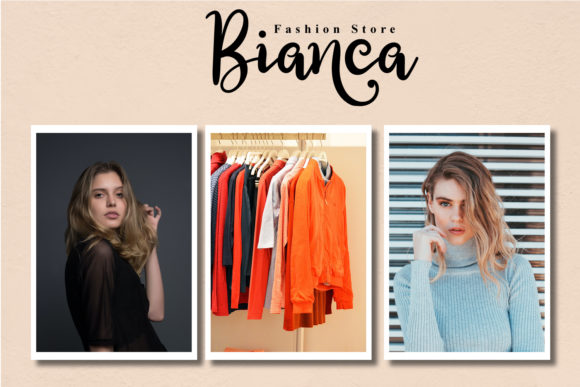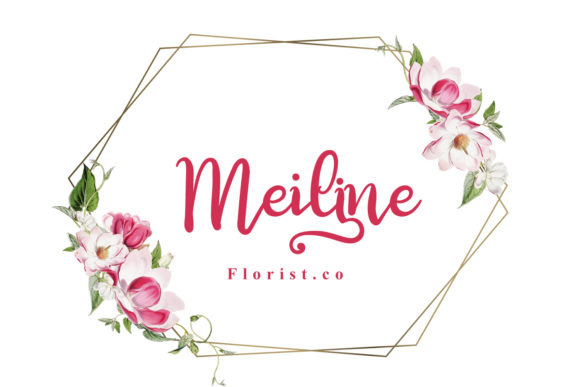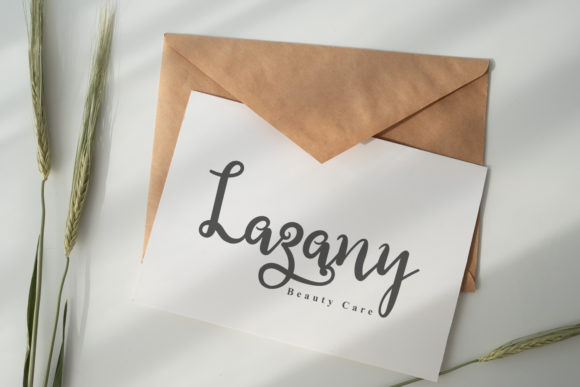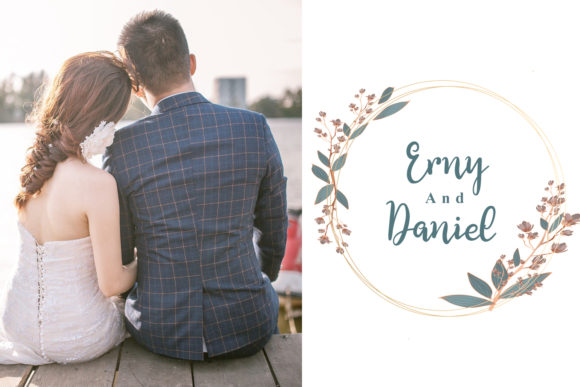
Introducing Chassandra Font: Elevate Your Designs with Elegance and Versatility
Are you on the hunt for a font that can add a touch of sophistication and elegance to your designs? Look no further than Chassandra Font, a lovely and flowing handwritten font that’s perfect for designers and crafters alike. With its PUA encoding, Chassandra offers unparalleled ease of use, allowing you to access a vast array of glyphs and swashes with just a few clicks.
The Beauty of Chassandra Font
Chassandra Font boasts a range of features that make it an ideal choice for any design project. Its varying baseline and smooth lines create a sense of fluidity and movement, adding a dynamic touch to any text. The font’s gorgeous glyphs and stunning alternates provide endless opportunities for creative expression, allowing you to experiment with different styles and effects.
One of the standout features of Chassandra Font is its incredible versatility. Whether you’re working on a branding project, a wedding invitation, or a social media graphic, this font is sure to impress. Its elegant, cursive script is perfect for adding a touch of sophistication to your designs, while its playful, whimsical feel makes it ideal for more creative and artistic projects.
For those who may not be familiar, PUA (Private Use Area) encoding is a system that allows font creators to include additional characters and glyphs in their fonts. This means that Chassandra Font includes a wide range of special characters, swashes, and alternates that can be accessed with ease. With PUA encoding, you can unlock the full potential of Chassandra Font and take your designs to the next level.
Using Chassandra Font in Your Designs
So, how can you use Chassandra Font in your designs? The possibilities are endless! Here are a few ideas to get you started:
- Branding and Logos: Use Chassandra Font to create a custom logo or brand identity that exudes elegance and sophistication.
- Wedding and Event Stationery: Add a touch of romance and whimsy to your wedding invitations, save-the-dates, and other event stationery with Chassandra Font.
- Social Media Graphics: Use Chassandra Font to create eye-catching social media graphics that showcase your brand’s personality and style.
- Packaging and Product Design: Add a touch of luxury and sophistication to your product packaging with Chassandra Font.
Tips and Tricks for Getting the Most Out of Chassandra Font
To get the most out of Chassandra Font, here are a few tips and tricks to keep in mind:
- Experiment with different sizes and styles: Chassandra Font looks great in a range of sizes and styles, so don’t be afraid to experiment and find the perfect look for your design.
- Mix and match glyphs and swashes: With its wide range of glyphs and swashes, Chassandra Font offers endless opportunities for creative expression. Try mixing and matching different characters to create a unique look.
- Use it with other fonts: Chassandra Font pairs well with a range of other fonts, so don’t be afraid to experiment with different combinations.
In conclusion, Chassandra Font is a versatile and elegant handwritten font that’s perfect for designers and crafters alike. With its PUA encoding, gorgeous glyphs, and stunning alternates, this font offers endless opportunities for creative expression. Whether you’re working on a branding project, a wedding invitation, or a social media graphic, Chassandra Font is sure to impress. So why wait? Download Chassandra Font today and take your designs to the next level!